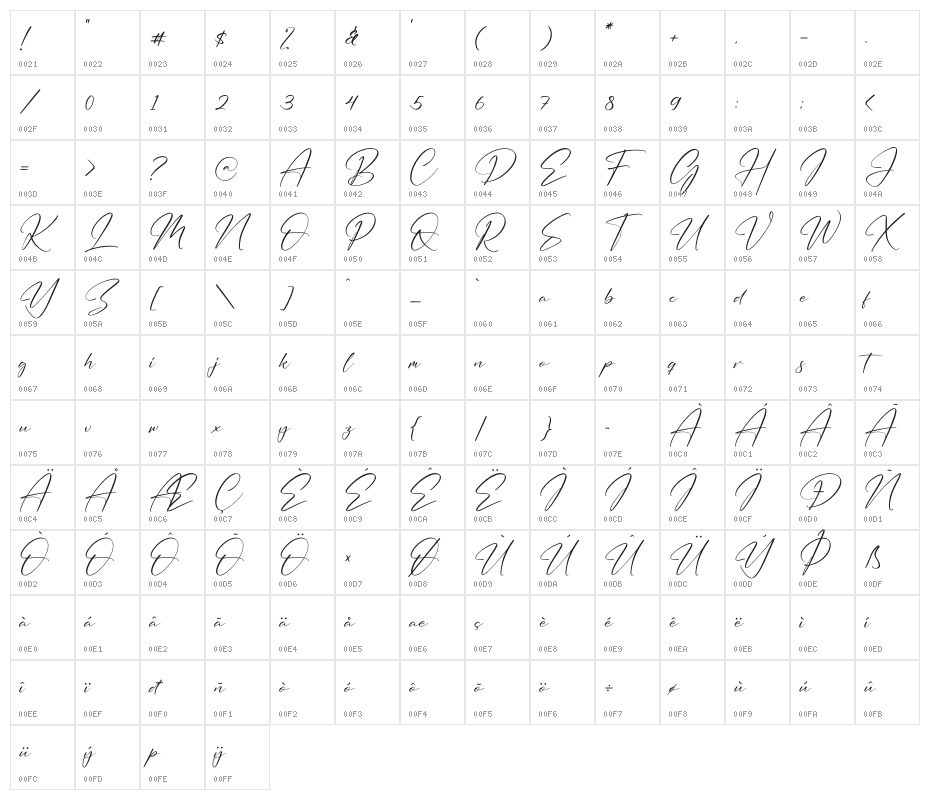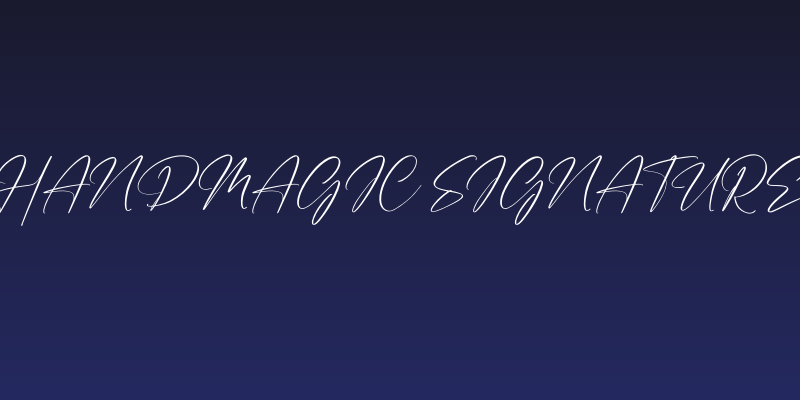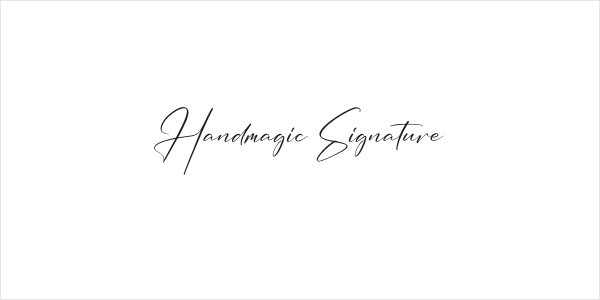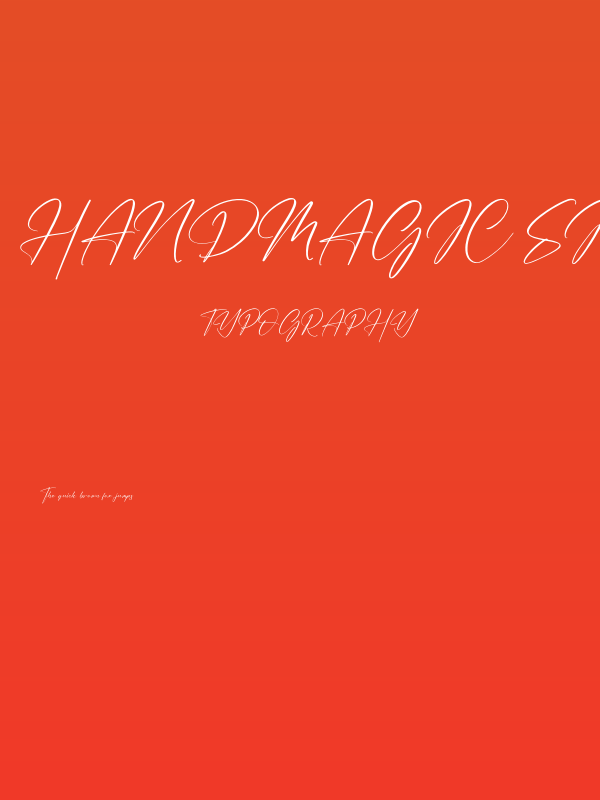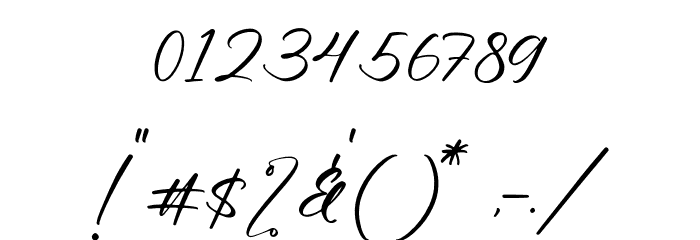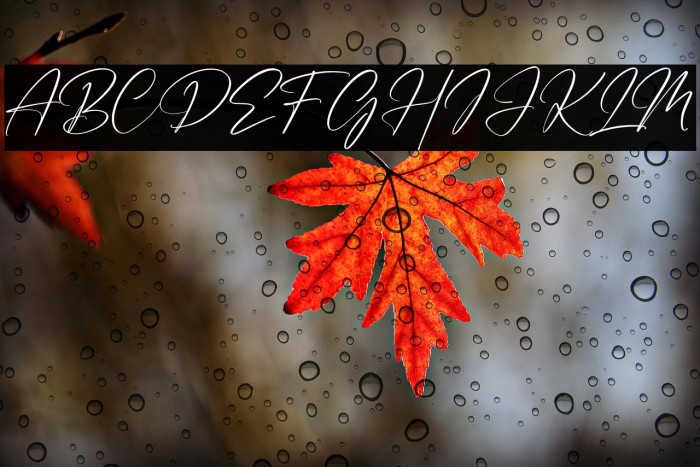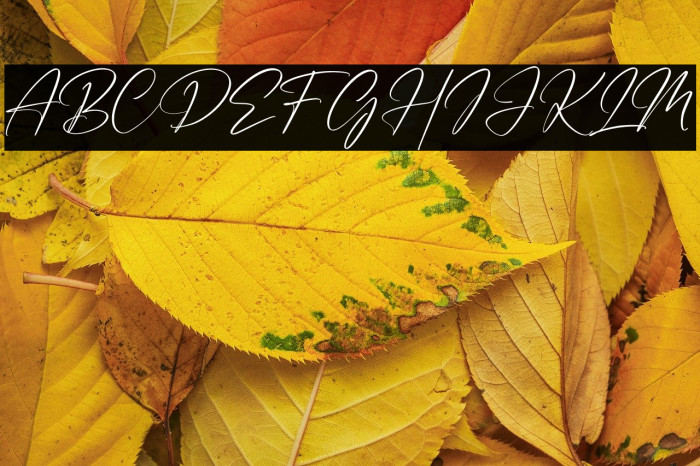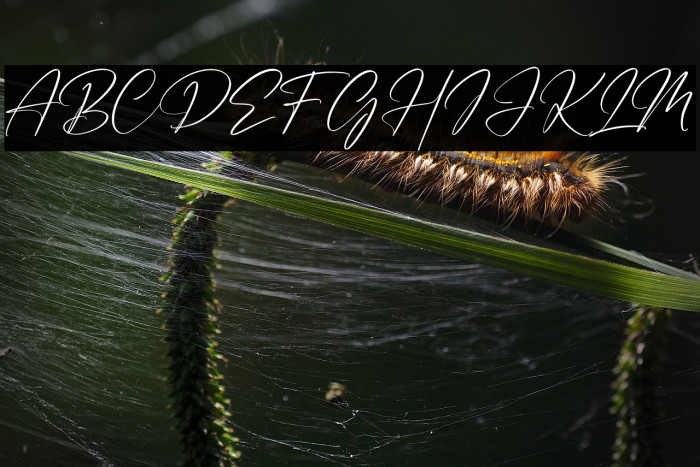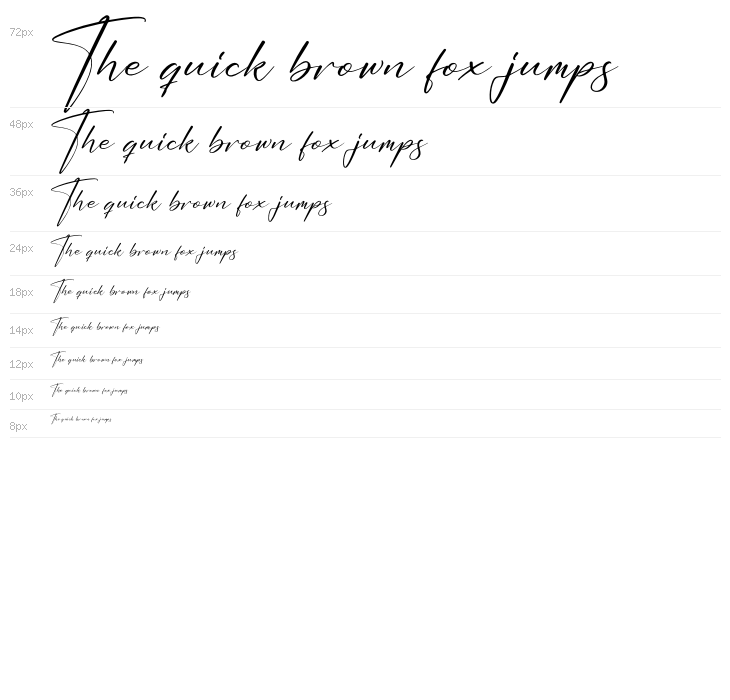
Handmagic Signature Font
Handmagic Signature Description
This font features an elegant and flowing script style, characterized by its smooth, cursive letterforms that mimic the fluidity of handwriting. The uppercase letters are tall and graceful, with sweeping curves and loops that add a touch of sophistication. The lowercase letters maintain a consistent flow, with gentle connections between each character, enhancing the handwritten feel. The numerals are stylish and complement the overall aesthetic, while the special characters are thoughtfully designed to match the script's elegance. This font exudes a sense of personal touch and artistic flair, making it ideal for projects that require a personal or creative touch.
| Overall Style | Elegant, Artistic |
| Proposed Projects | Ideal for wedding invitations, personal branding, greeting cards, and artistic projects. |